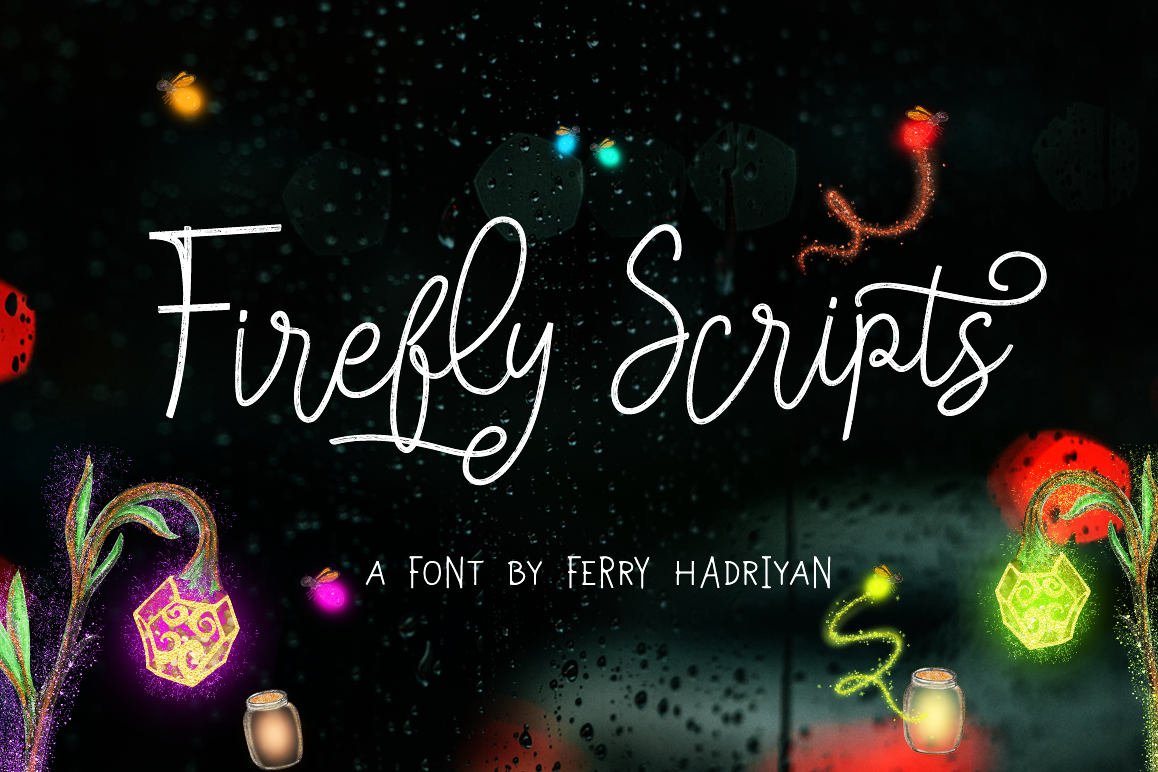
Firefly - Handletter Family
Firefly Swashes
Firefly Sans Ou
Firefly Scrip
Firefly Sans
Firefly
Firefly - Handletter Family
Firefly is brush script font with modern calligraphy style and sans combination trio font, with handletter dry brush authenthic style. Suitable for design, element design, wedding, event, t-shirt, logo, badges, sticker, and awesome work, etc...
- Combination alternative ligature fonts
- Standard Ligatures, Stylistic Set, Multilanguage Characters, etc
- Modern Calligraphy Typeface
- Multilanguage Support
- Unique style fonts